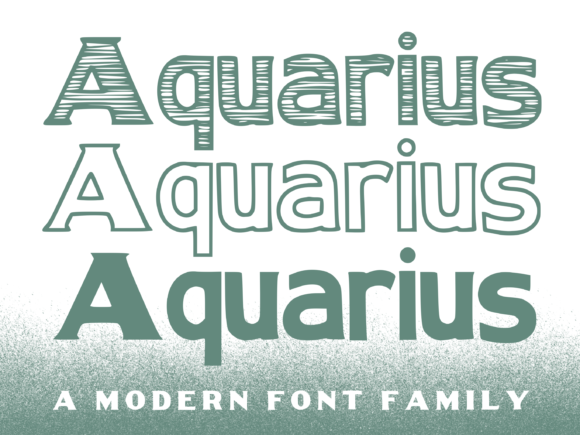
The Quest for the Perfect Font: Discovering Aquarius
I’ll never forget the frustration of working on a design project, hours spent scrolling through font libraries, and yet, none seemed to fit the vibe I was going for. My client wanted something modern, fresh, and unique, but also cohesive across various platforms. That’s when I stumbled upon the Aquarius Font family, and it was love at first sight! ✨
Aquarius Font: A Modern Family of Typefaces
Aquarius is a modern font family consisting of 3 typefaces. Each typeface denotes a unique aesthetic while maintaining the overall signature look of Aquarius. This versatility caught my attention, and I knew I had to dive deeper.
- ✅ Consistency across typefaces: Each of the three typefaces in the Aquarius family shares a distinct look that ties them together seamlessly.
- ✅ Modern aesthetic: The clean lines and curves give it a fresh, contemporary feel perfect for designs that need to pop.
- ✅ OpenType features: Aquarius supports a range of OpenType features, including stylistic alternates and glyphs, making it super versatile for creative projects.
- ⚠️ Limited use in very small sizes: Like many modern fonts, Aquarius shines best in larger sizes. Using it for body text in smaller sizes might not be the most legible choice.
- 🤔 Learning curve for OpenType features: For those new to using OpenType features, there might be a slight learning curve to fully leverage all that Aquarius has to offer.
The Designer Inspiration Behind Aquarius
The Aquarius font family was designed with the modern creative in mind. Its designer aimed to create a versatile typeface that could be used across various platforms and projects, from digital interfaces to print materials. The goal was to achieve a balance between uniqueness and readability, making Aquarius suitable for headlines and body text alike.
Q: Is Aquarius suitable for body text?
A: While Aquarius shines in headlines and titles, its legibility in body text depends on the size and the specific design needs. It’s best used in larger sizes for optimal readability.